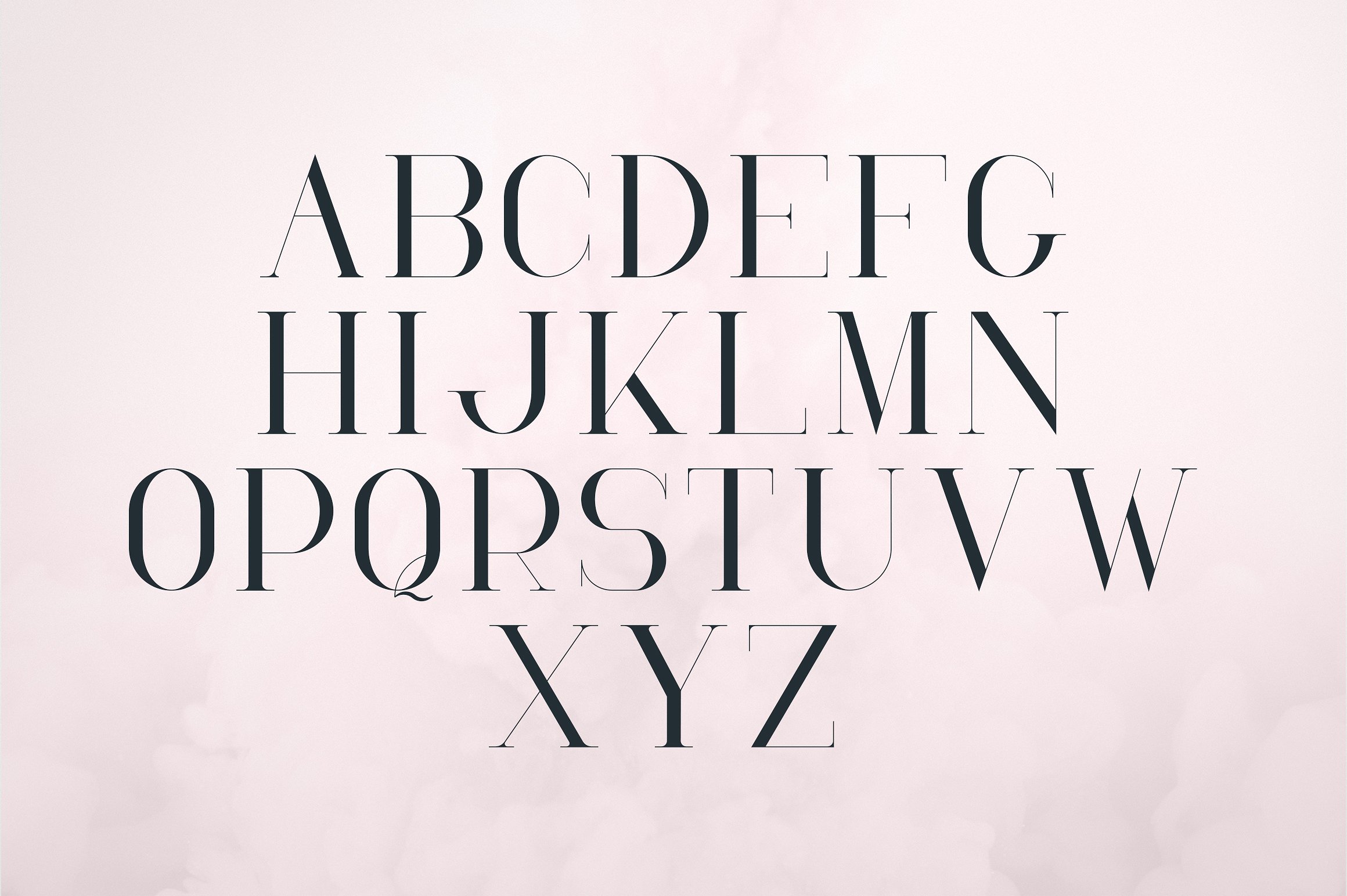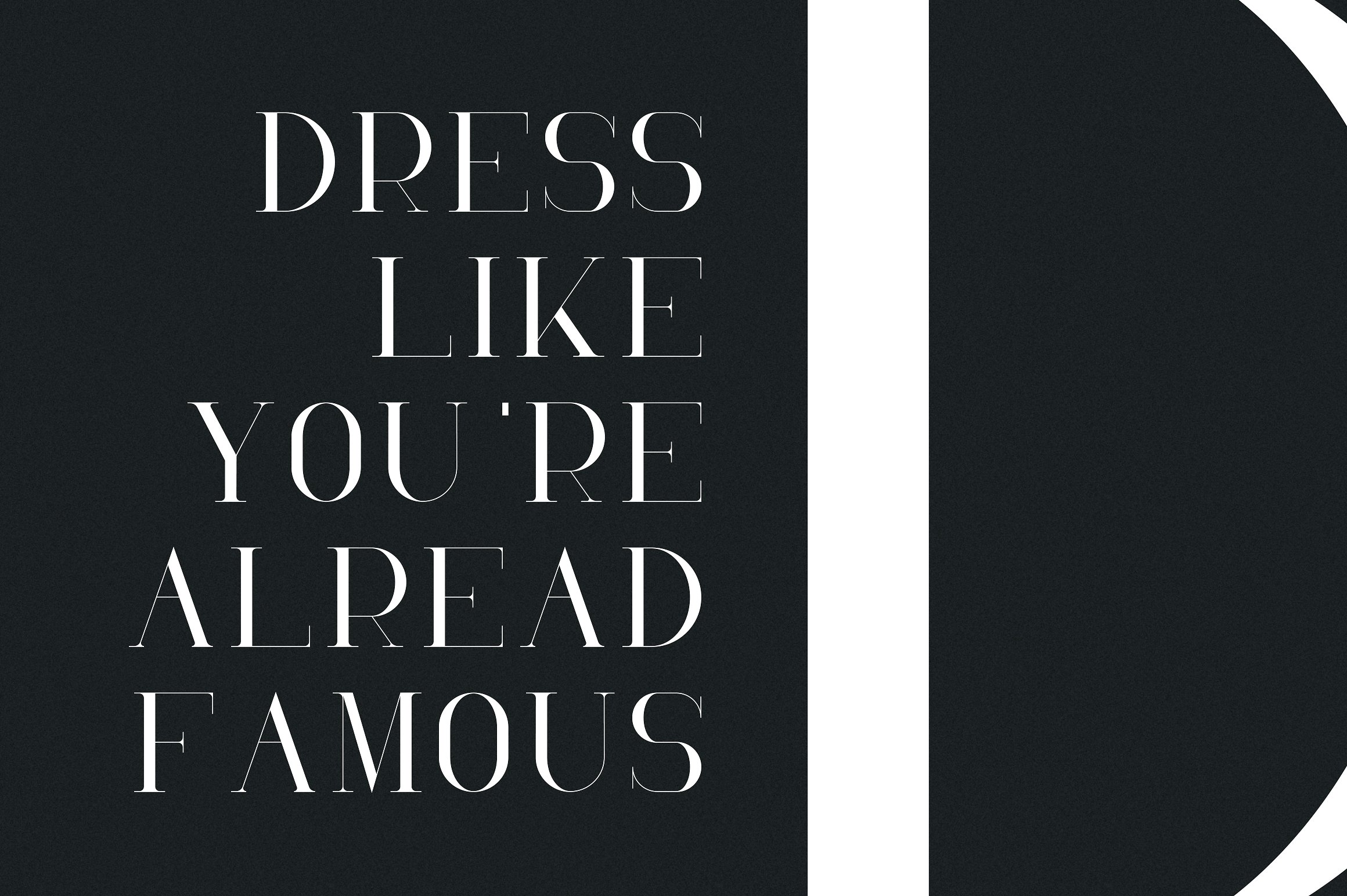
RoseGold Serif Font
RoseGold Serif Font – Free Demo
A high contrast serif typefamily. This is a serif font and Logo Template. It will fit all your design projects. Introducing RoseGold Font. RoseGold Serif Font is elegant serif font with 7 alternative glyphs for each character. It’s a very versatile font that works great in large and small sizes. RoseGold is perfect for branding projects, home-ware designs, product packaging, wedding invitations, magazine headers – or simply as a stylish text overlay to any background image.